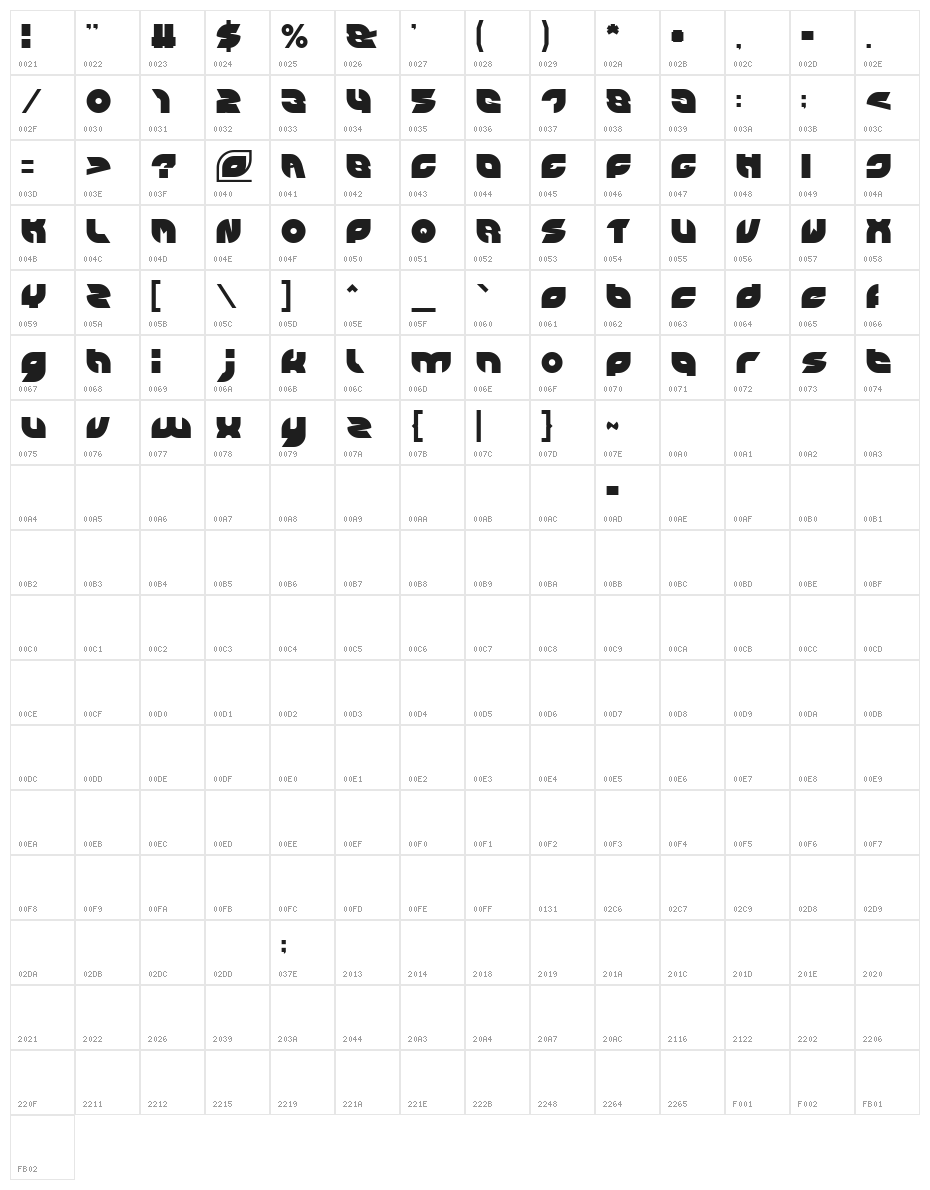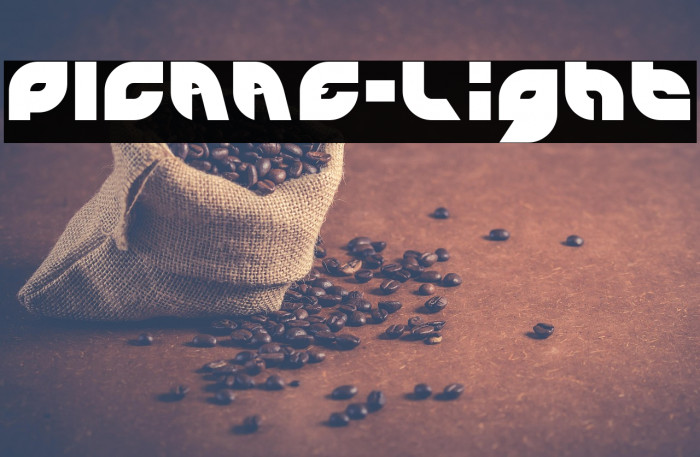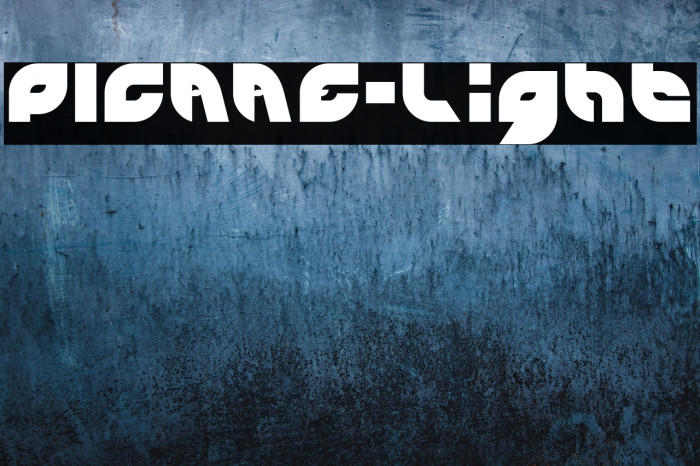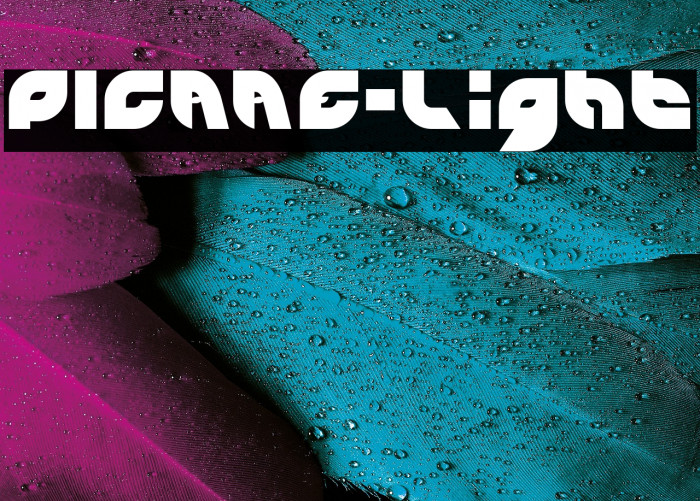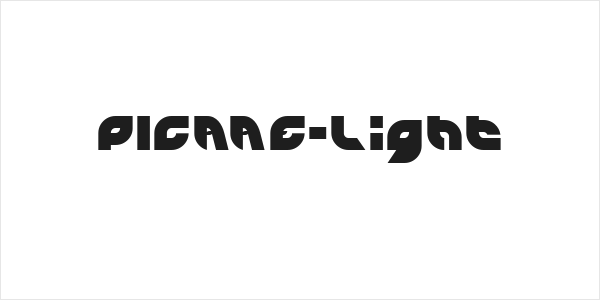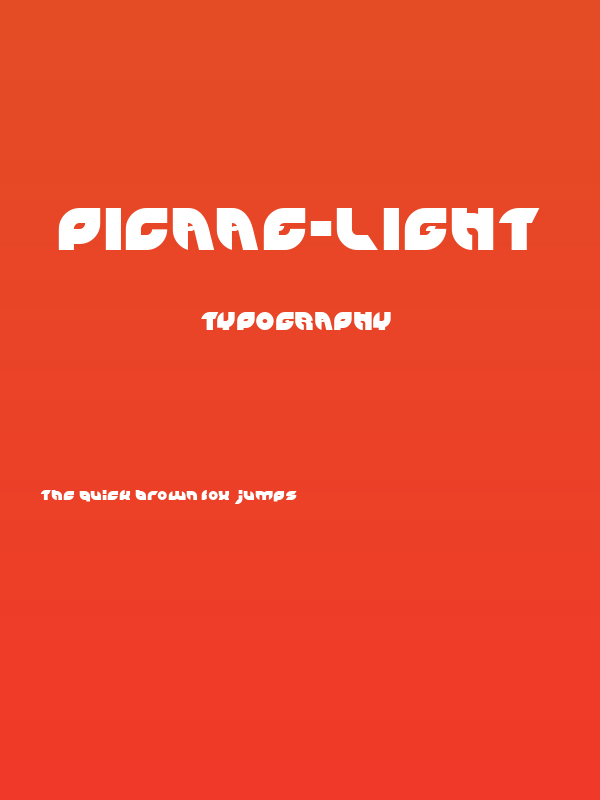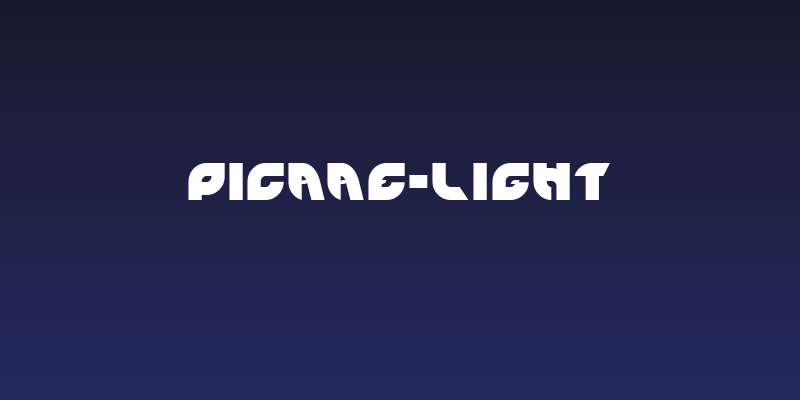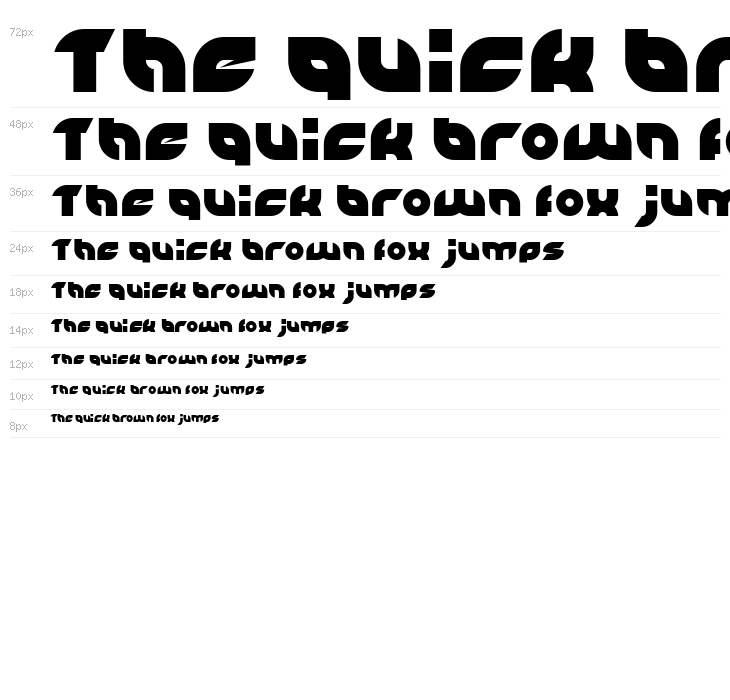
PICAAE-Light Font
PICAAE-Light Description
This font features a bold, geometric design with a futuristic and edgy appearance. The characters are constructed with thick strokes and sharp angles, creating a sense of movement and dynamism. The uppercase and lowercase letters maintain a consistent style, with unique cutouts and curves that add to its distinctiveness. The numbers and special characters follow the same bold and angular theme, ensuring uniformity across all glyphs. This font is ideal for projects that require a modern and impactful visual statement.
Proposed ProjectsIdeal for branding, posters, video game titles, and sci-fi themed projects.